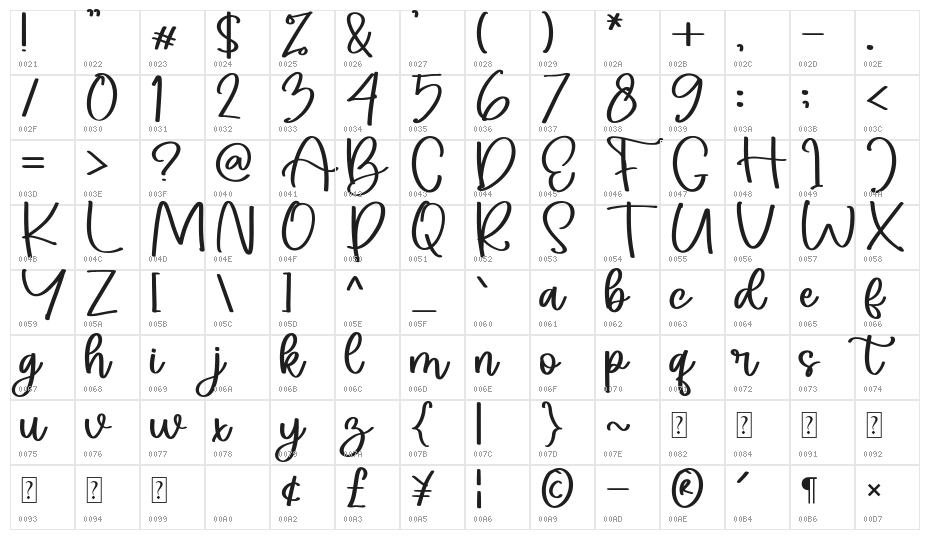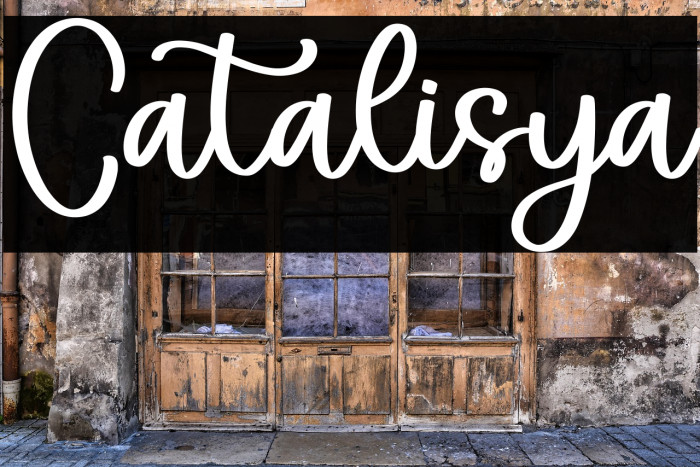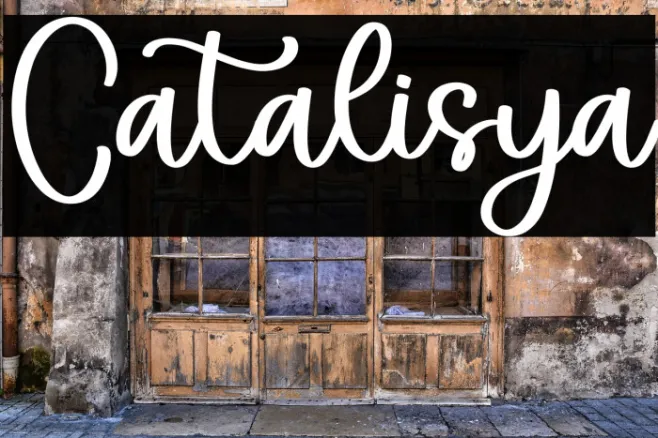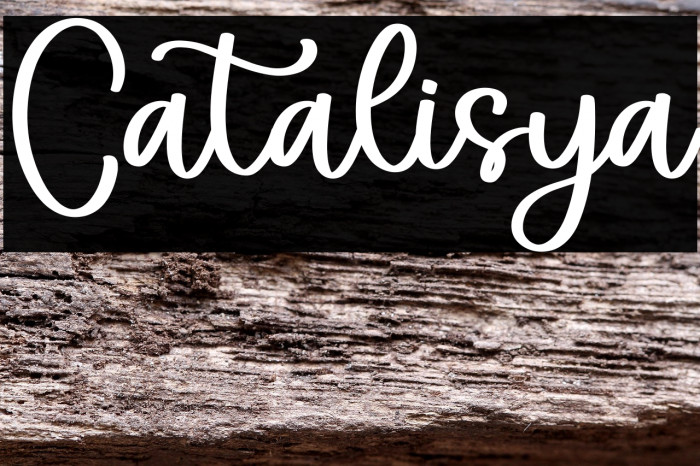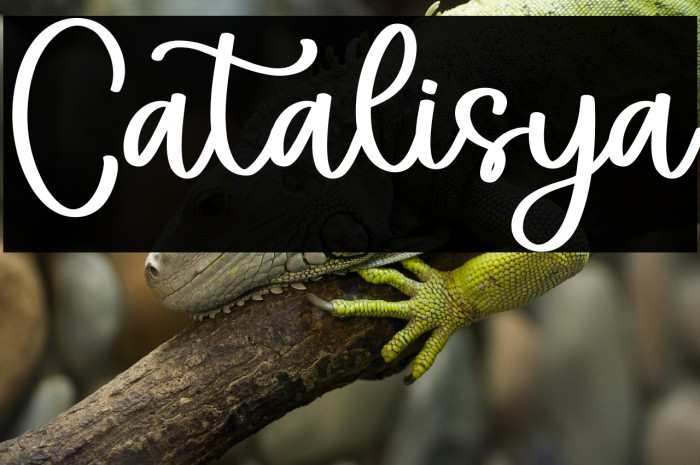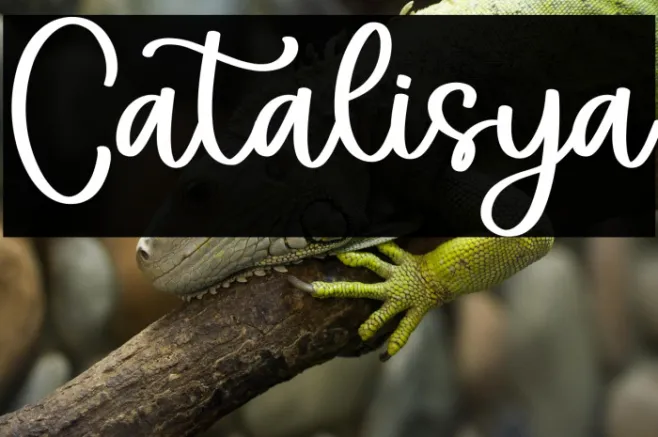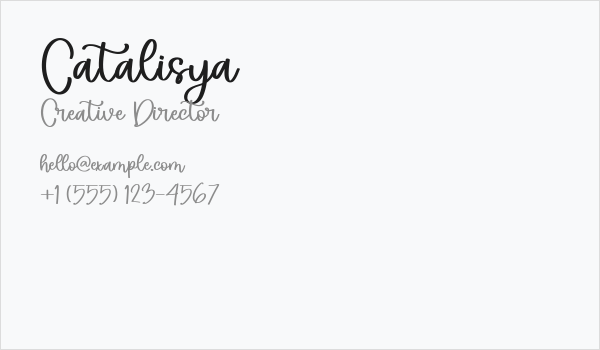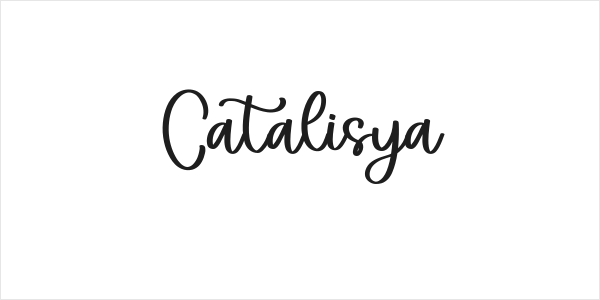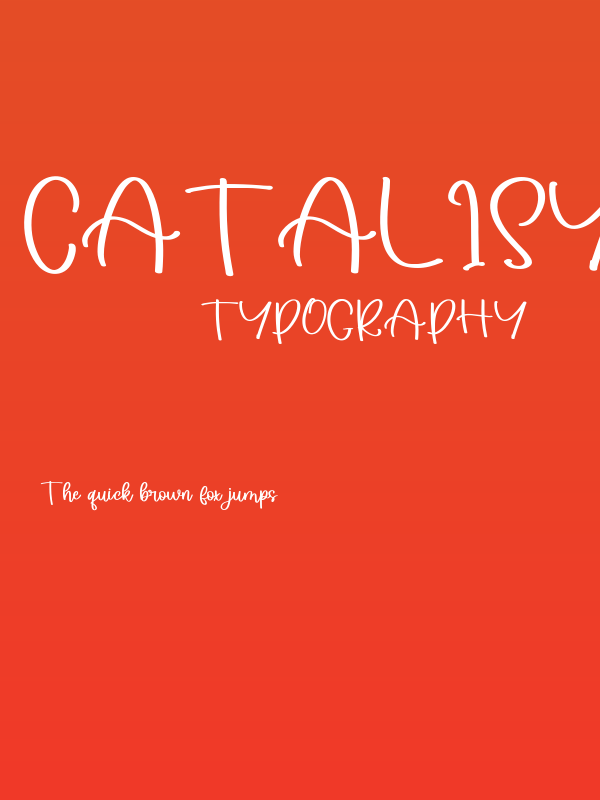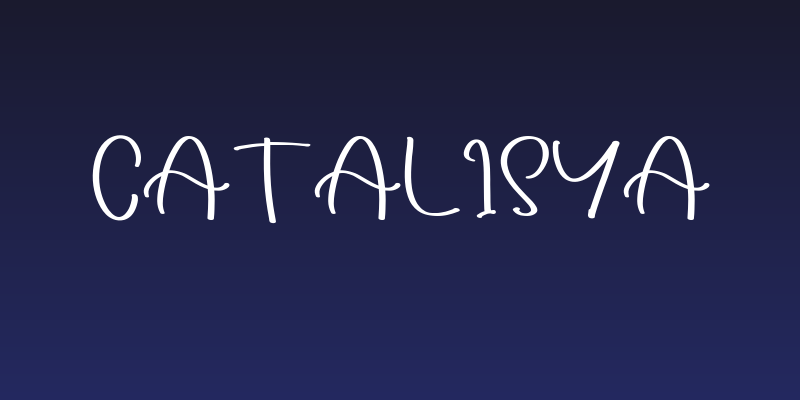
Catalisya Font
Catalisya Description
This font features a playful and elegant script style, characterized by its flowing, cursive letters that convey a sense of movement and grace. The uppercase letters are slightly more structured, maintaining a balance between formality and whimsy, while the lowercase letters exhibit a more pronounced cursive flair with loops and swashes. The numerals and special characters maintain the same fluidity, ensuring consistency across all characters. This font is designed to capture attention with its artistic flair, making it ideal for creative and expressive projects.
| Proposed Projects | Ideal for wedding invitations, greeting cards, logos, and branding materials that require a personal and artistic touch. |